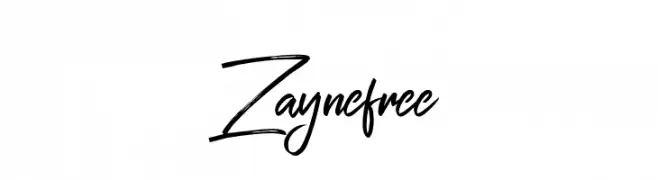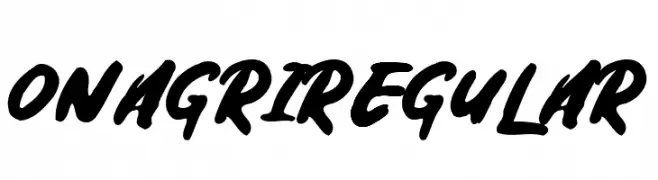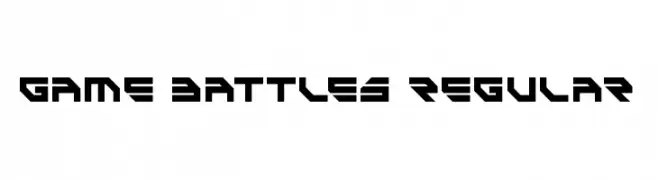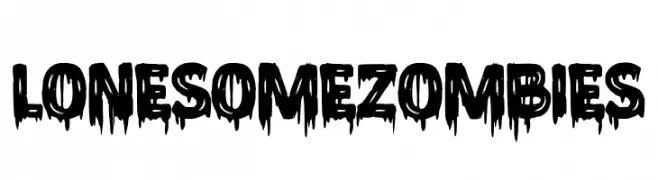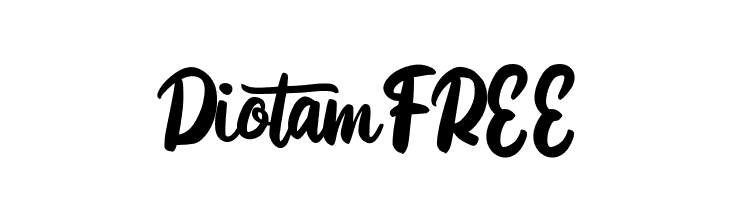
A futuristic, angular outline font with a bold, geometric style.
A bold, calligraphic font with dynamic, flowing strokes and artistic flair.
A dynamic and fluid script font with elegant, flowing letterforms.
A vintage typewriter-style font with a distressed, textured appearance.
A bold, dynamic handwritten font with expressive strokes and a playful style.
A festive decorative font with Christmas bell motifs integrated into each character.
A bold, geometric font with a futuristic, digital aesthetic.
A bold, dripping font perfect for horror-themed designs.
A decorative script font with leaf-adorned uppercase letters and elegant cursive lowercase.